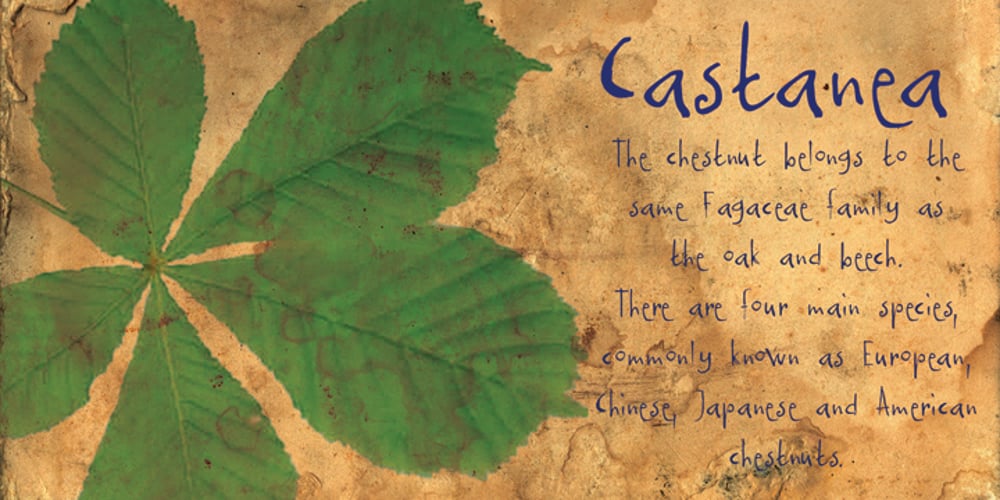
Castanea Font Family was designed by David Kerkhoff and published by Hanoded. Castanea contains 2 styles and family package options. The chestnut (“castanea”) is one of my favorite trees. I used to collect the chestnuts and made chestnut-figurines out of them, using bamboo sate skewers. Castanea font is a calligraphic typeface with an uneven baseline and some messy characters – not unlike the tree. It is a highly legible, highly enjoyable font and could be used for children’s books and postcards. Castanea comes with various alternate glyphs and speaks most Roman-based languages!